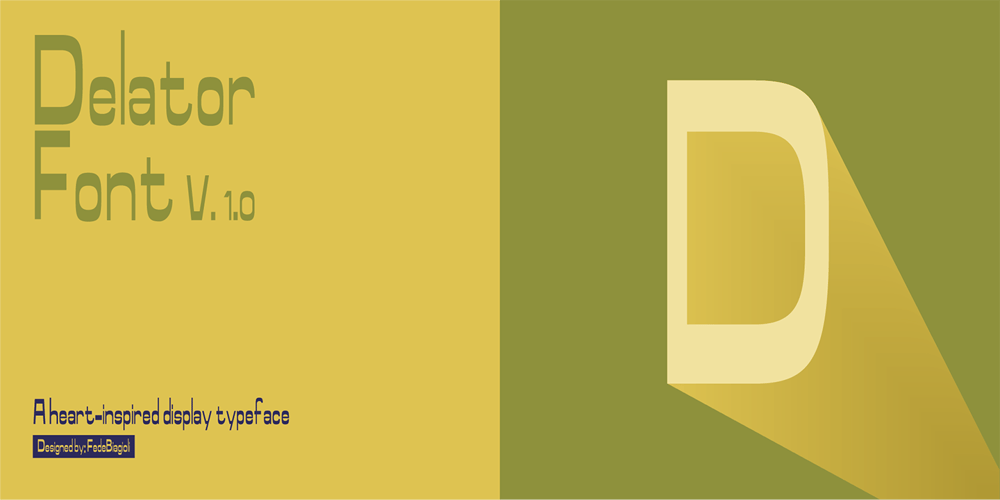
Delator Font Family was designed by Federico Biagioli and published by FedeBiagioli TypeFoundry. Delator contains 1 styles and family package options. Delator font is a display typeface, inverted contrast, and condensed. Inspired by the personal experience of the designer who, with resilience and daily struggle, managed to get ahead. Its name is linked to the song of an Argentine rock artist called “Corazón delator”, this means that it is a typeface that does not go unnoticed, it attracts attention for its shapes and its way of being and above all, when it is present, it automatically “gives itself away”.